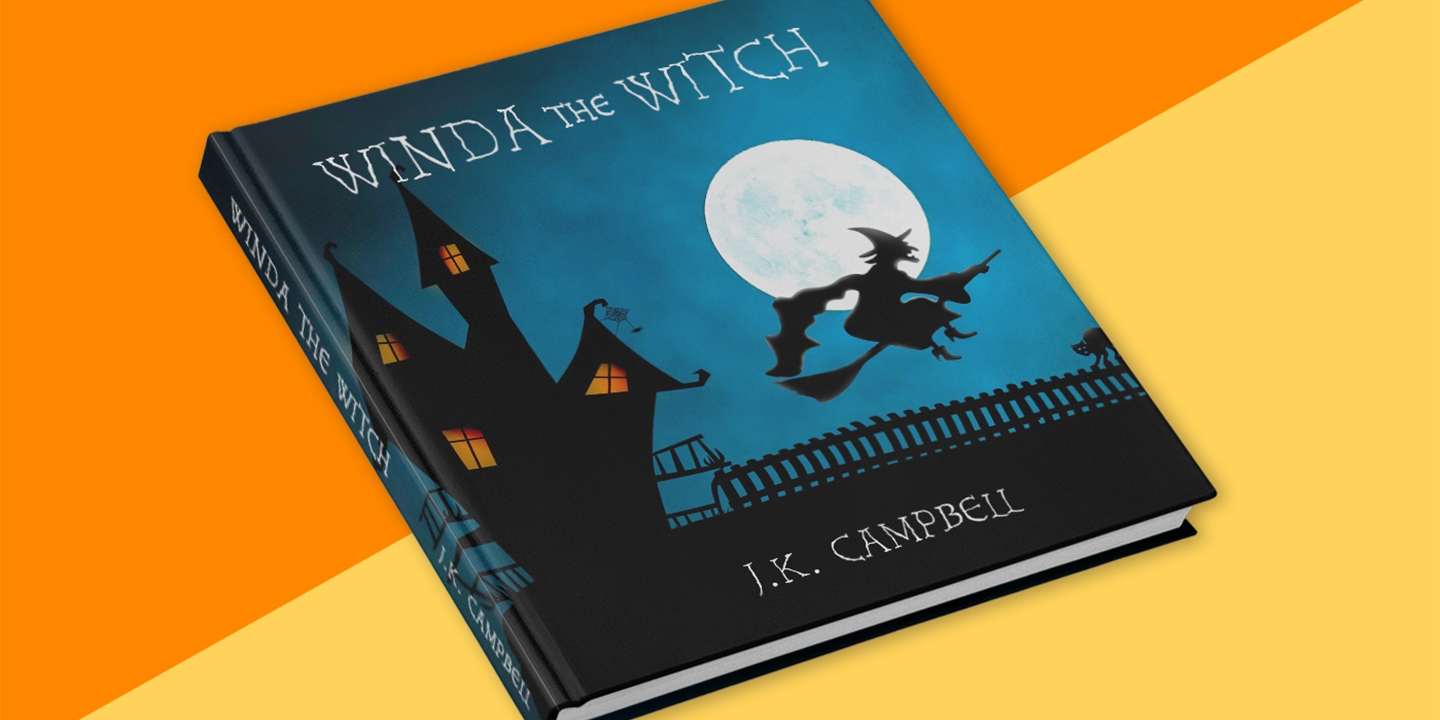
Linotype Invasion Free Download
Linotype Invasion Font Free Download
Linotype Invasion Font Free Download is a bold and impactful display typeface designed to command attention and deliver a strong visual presence. With its sharp edges, aggressive angles, and powerful lines, this font is perfect for posters, headlines, branding, and any design that demands intensity.
Its modern yet raw aesthetic makes Linotype Invasion Font Free Download an excellent choice for sports brands, gaming projects, music promotions, and dynamic marketing campaigns. The font’s assertive style ensures your message won’t just be seen—it’ll be felt.
Make a bold statement with Linotype Invasion Font Free Download. Whether it’s for a high-energy campaign or an edgy brand identity, this font delivers power and presence with every letter.